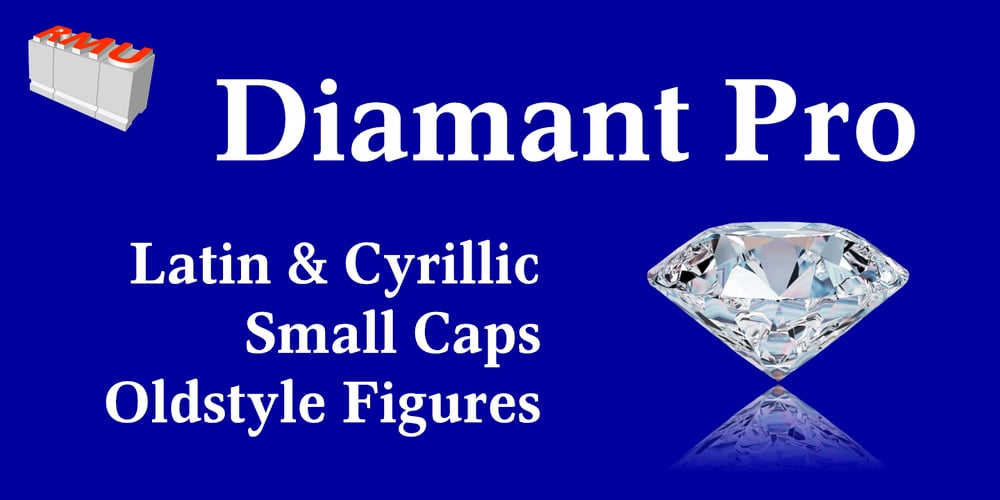
Diamant Pro Font Family was designed by Ralph M. Unger and published by RMU. Diamant Pro contains 3 styles and family package options. Diamant Pro is a versatile multilingual serif font family which comes with small caps and old-style figures. These fonts are suitable for the major West and Central European languages as well as for Turkish and Cyrillic written languages. This font family is ideal for bodytexts in newspapers and magazins.